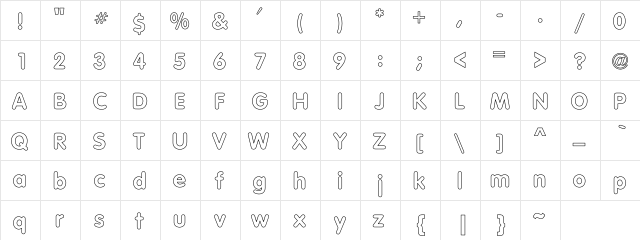
Schuler Regular
Design Context for Schuler Typeface
Schuler is a composed and adaptable typeface that performs quietly and consistently across a wide range of design contexts.